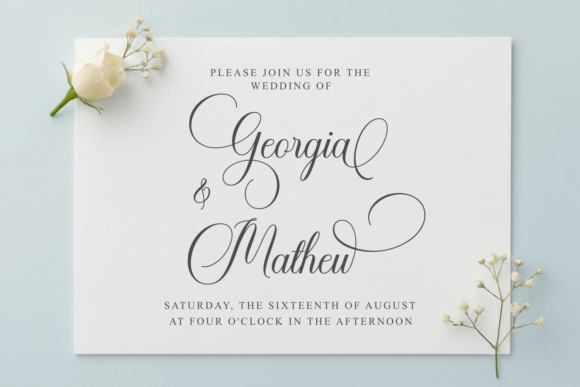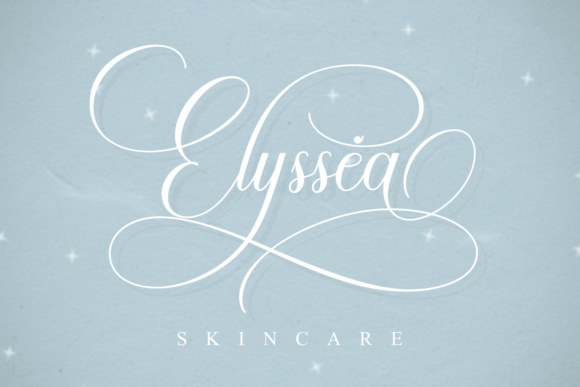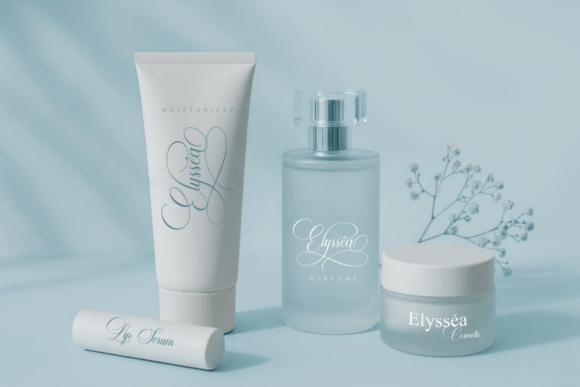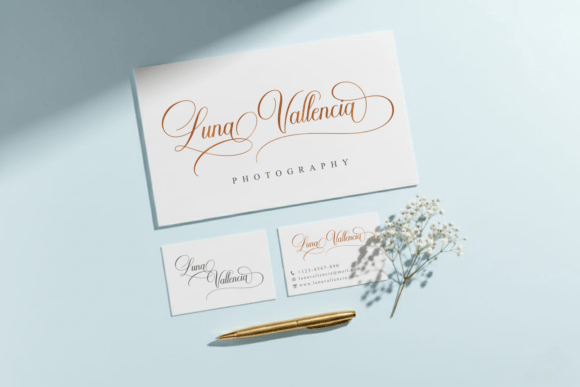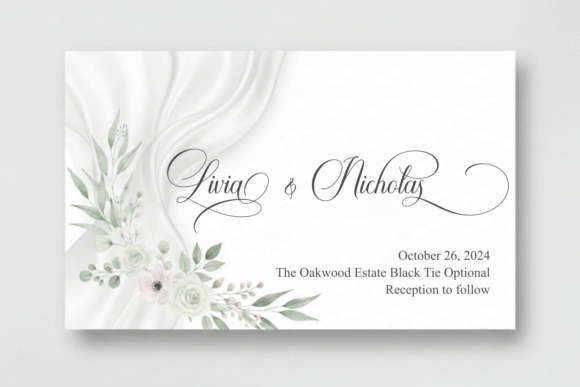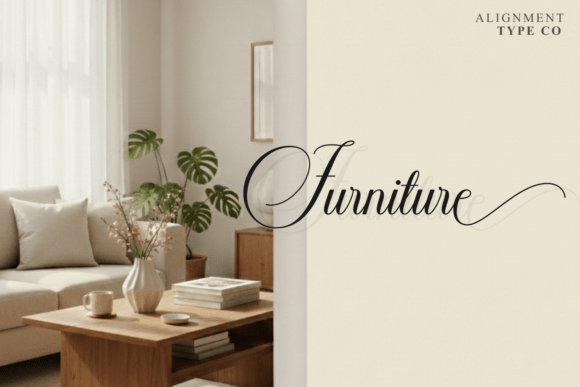
Introducing Alignment Font: Elevate Your Designs with Elegance and Sophistication
In the world of typography, a well-crafted font can make all the difference in elevating your designs from ordinary to extraordinary. For designers and crafters seeking a stylish, feminine, and luxurious script font, Alignment Font is an exceptional choice. This modern calligraphy script font boasts elegant swashes and smooth handwritten strokes, perfect for creating stunning digital and print designs.
The Essence of Alignment Font
Alignment Font is designed with elegance and sophistication in mind. Its flowing letterforms, beautiful curves, and balanced contrast make it an ideal choice for a wide range of applications, including branding, logo design, wedding invitations, luxury packaging, social media, quotes, and fashion or beauty projects. This elegant script font exudes a romantic and refined feel while maintaining readability, making it perfect for high-end designs and creative projects.
Key Features of Alignment Font
- Modern Calligraphy Style: Alignment Font features a modern calligraphy style that brings a touch of sophistication and elegance to your designs.
- Elegant Swashes and Strokes: The font’s elegant swashes and smooth handwritten strokes add a level of refinement and luxury to your designs.
- PUA Encoded: Alignment Font is PUA encoded, allowing you to access all glyphs and swashes with ease, making it simple to customize and adapt to your design needs.
- Versatile and Adaptable: This font is perfect for a wide range of applications, from digital designs to print materials, and can be used for both personal and commercial projects.
Why Choose Alignment Font?
With Alignment Font, you can add a touch of elegance and sophistication to your designs, setting them apart from the ordinary. Here are just a few reasons why designers and crafters choose Alignment Font:
- Unique and Eye-Catching: Alignment Font’s unique and eye-catching design makes it perfect for creating stunning visual content that captures attention.
- High-End Designs: The font’s luxurious feel and elegant style make it ideal for high-end designs, such as luxury packaging, wedding invitations, and high-fashion branding.
- Easy to Use: With its PUA encoding, Alignment Font is easy to use and customize, allowing you to access all glyphs and swashes with ease.
- Support for Multiple Languages: Alignment Font supports multiple languages, making it a versatile choice for designers and crafters working on international projects.
Applications for Alignment Font
Alignment Font is an incredibly versatile font that can be used for a wide range of applications, including:
- Branding and Logo Design: Create stunning brand identities and logos with Alignment Font’s elegant and sophisticated style.
- Wedding Invitations and Stationery: Add a touch of luxury and romance to your wedding invitations, stationery, and other paper goods.
- Luxury Packaging: Elevate your luxury packaging designs with Alignment Font’s high-end style and elegant feel.
- Social Media and Quotes: Create stunning social media graphics and quotes with Alignment Font’s elegant and refined style.
- Fashion and Beauty Projects: Add a touch of sophistication and glamour to your fashion and beauty projects with Alignment Font.
In conclusion, Alignment Font is an exceptional choice for designers and crafters seeking a stylish, feminine, and luxurious script font. With its modern calligraphy style, elegant swashes, and smooth handwritten strokes, this font is perfect for creating stunning digital and print designs. Its versatility, adaptability, and ease of use make it an ideal choice for a wide range of applications. Whether you’re working on branding, logo design, wedding invitations, luxury packaging, social media, quotes, or fashion and beauty projects, Alignment Font is sure to elevate your designs to new heights.